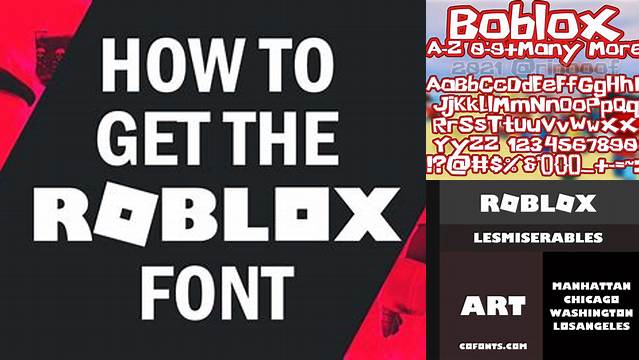
Roblox Font Style: Free Download & How To Use
Understanding the Iconic Roblox Font
Hey guys! Ever wondered about that super distinctive font that pops up everywhere on Roblox? That's the Roblox font, and it's got a whole vibe of its own, right? It's clean, a bit blocky, and instantly recognizable. For creators, developers, and even just fans who want to give their projects that authentic Roblox feel, knowing where to get and how to use this font is a game-changer. We're talking about making your game thumbnails, social media posts, or even custom assets look like they belong straight from the Roblox platform. It's not just about slapping a font on text; it’s about capturing that playful, creative, and sometimes adventurous spirit that Roblox is known for. Many people search for "Roblox font style free download" because they want to replicate that specific aesthetic without any hassle or cost. This font has been a cornerstone of the platform's identity, appearing in everything from in-game interfaces to promotional materials. Its design philosophy likely revolves around readability across various screen sizes and the overall user experience within the Roblox ecosystem. When you see text in this font, you immediately associate it with the vast world of user-generated content, virtual experiences, and the social interactions that define Roblox. It’s a powerful visual cue that unifies the diverse content found on the platform. So, whether you're designing a new game logo or just want to experiment with the Roblox look, understanding the font's characteristics and its availability is your first step towards creating something truly authentic and engaging. This article is going to guide you through everything you need to know to get your hands on this awesome font and start using it like a pro. Get ready to level up your design game!
Why You Need the Roblox Font for Your Projects
So, why bother with the specific Roblox font, you ask? Well, guys, it's all about authenticity and branding. If you're building a game on Roblox, or even just creating fan art or social media content related to it, using the official or a very similar font instantly makes your project feel legitimate. It's like wearing the team's jersey – people know what you're representing. This isn't just for games; think about YouTube thumbnails, Discord servers, or even merchandise designs. When you want your content to scream "Roblox," this font is your secret weapon. It helps build recognition and trust with your audience. They see the font, and they immediately understand the context. It’s that powerful. Plus, let’s be honest, it just looks cool! It’s designed to be fun, engaging, and visually appealing, fitting perfectly with the colorful and imaginative world of Roblox. When you download and use the Roblox font style, you're tapping into a massive, established brand identity. This can significantly boost the perceived quality and professionalism of your own creations. Imagine a game developer creating a new title; using the Roblox font for their promotional materials helps them align with the platform's visual language, making it easier for potential players to discover and recognize their game within the vast Roblox marketplace. It’s a smart way to leverage the existing appeal of Roblox to give your own projects a professional edge. It’s not just about looking like Roblox; it’s about enhancing your own creative output by associating it with a platform that millions of people worldwide love and engage with daily. So, grab that font and let your creativity shine!
Using Roblox Font in Design Software (Photoshop, GIMP, etc.)
Now that the font is installed, let's talk about putting it to work in your favorite design tools, like Photoshop, GIMP, or even simpler programs like Canva. Guys, this is where the real fun begins!
First things first: open your design software. Whether it's Photoshop, GIMP, Affinity Designer, or even a free online editor, the process is pretty much the same. Select the Text Tool (usually represented by a 'T' icon). Now, click anywhere on your canvas where you want to add text. A cursor will appear, ready for you to type. The crucial step is selecting the font. Look for the font dropdown menu – it's usually at the top of your screen or within a character or text panel. Type in the name of the font you downloaded (e.g., "Roblox Font" or whatever you named it). If you installed it correctly, it should pop right up in the list! Select it, and your typed text will instantly change to the Roblox font style. Pretty neat, huh? You can then adjust the size, color, and spacing just like any other font. For that extra Roblox flair, consider using bright colors, bold outlines, or even a slight shadow effect, mirroring the style often seen on the platform. Remember to experiment! Different combinations can yield unique and eye-catching results. So go ahead, type out your game titles, character names, or whatever you dream up, and make it look authentically Robloxian. It's all about bringing your ideas to life with that signature style.
Can I Use the Roblox Font for Commercial Projects?
This is a super important question, guys, and it’s crucial to get right: Can you use the Roblox font for commercial projects? The short answer is: it depends, and you need to be careful. The official Roblox font is proprietary and owned by Roblox Corporation. This means using it for commercial purposes, like selling merchandise or in a game that generates revenue, without explicit permission or a license is generally a big no-no. It could lead to legal trouble. However, many of the free replicas you find online come with specific licenses. Most of these free fonts are licensed for personal use only. This means you can use them for your fan art, personal blogs, school projects, or non-monetized YouTube videos. If you want to use a font that looks like the Roblox font for a commercial project, your safest bet is to look for fonts that are explicitly licensed for commercial use. Many font creators offer their fonts with different licensing options. Some might have a free personal use version and a paid commercial license. Always, always check the license agreement that comes with the font file you download. It should clearly state whether commercial use is permitted. If in doubt, assume you can't use it commercially and look for an alternative or purchase a proper license. Protecting yourself legally is way more important than risking a copyright issue. So, do your homework before you start selling t-shirts with that font!
Roblox Font Alternatives: Similar Free Fonts
What if you can't find the exact Roblox font, or you need something similar for a commercial project where licensing is tricky? No worries, guys! There are tons of awesome free fonts out there that capture a similar vibe. The Roblox font is generally characterized by its clean, slightly rounded, sans-serif appearance, often with a bit of a chunky feel. Think about fonts that are bold, legible, and have a playful yet structured look. Some great alternatives include Comic Neue, which offers a fun, hand-drawn feel that's very approachable. Bubblegum Sans is another fantastic option; it’s very rounded and playful, perfect for that kid-friendly, energetic aesthetic. For something a bit more geometric and blocky, you could check out Poppins or Nunito. These are modern, clean sans-serifs that are highly versatile and often free for commercial use. Another popular choice that echoes the Roblox style is Quicksand. It's got those smooth, rounded edges that make it feel friendly and modern. When you're searching on font sites, look for terms like "rounded sans-serif," "playful," "bold," or "display" fonts. Many of these alternatives are available on platforms like Google Fonts, which makes them super accessible and usually commercially friendly. Experimenting with these will help you achieve that desired Roblox-esque look while staying on the right side of licensing laws. So don't stress if the exact font is elusive; there's a whole universe of cool typefaces waiting for you!